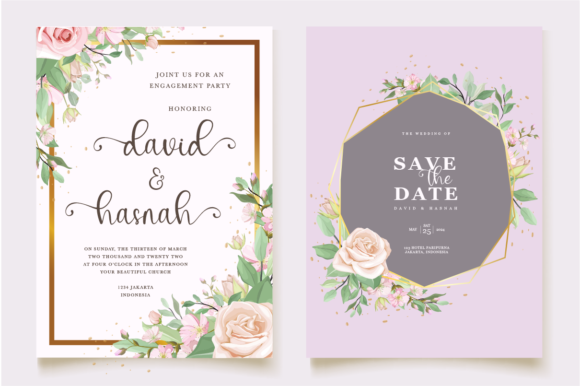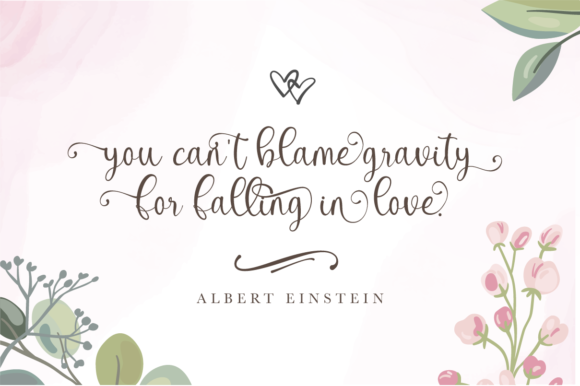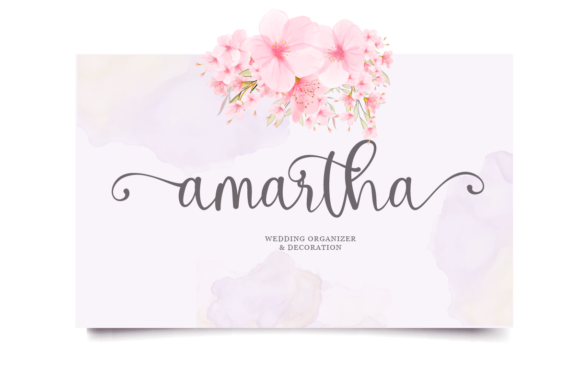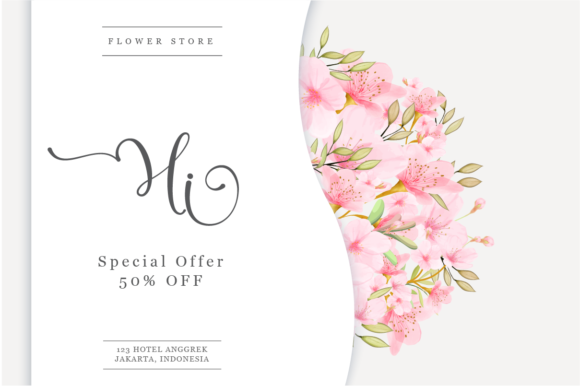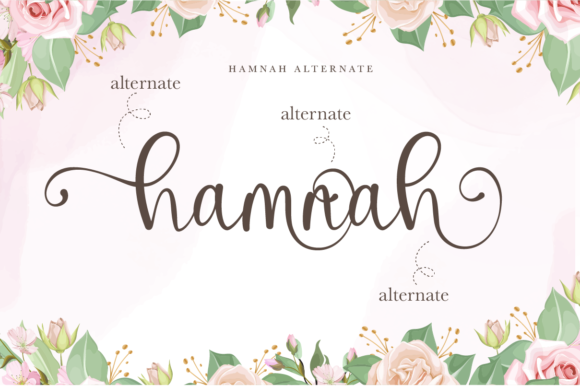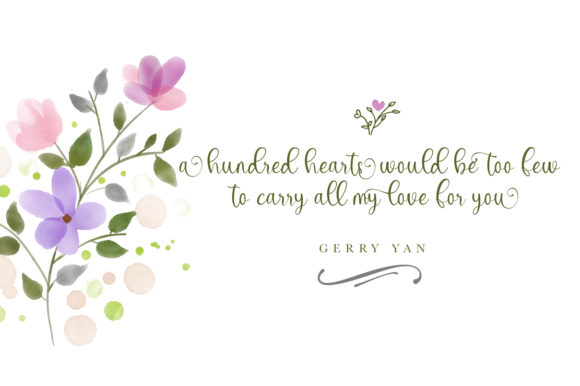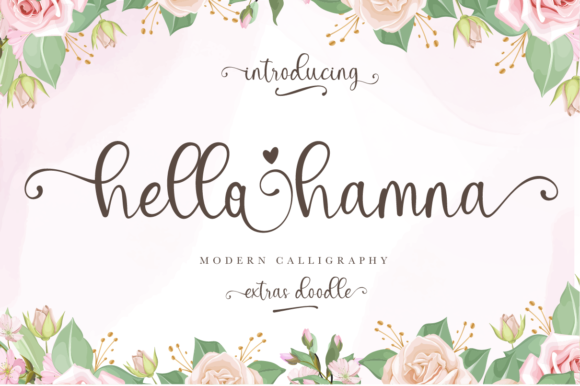
Introducing Hamnah Font: The Sweet and Soft Hand-Lettered Font for Your Creative Projects
Are you a designer or crafter looking for a font that can add a touch of elegance and whimsy to your creations? Look no further than Hamnah Font, a sweet and soft hand-lettered handwritten font that’s perfect for a variety of projects. In this article, we’ll take a closer look at Hamnah Font, its features, and how you can use it to create stunning wedding invitations, beautiful stationery art, eye-catching social media posts, and cute greeting cards.
What is Hamnah Font?
Hamnah Font is a hand-lettered handwritten font that’s designed to give your projects an authentic and personal touch. Its soft and sweet curves make it perfect for creating beautiful and elegant designs that are sure to impress. Whether you’re a professional designer or a crafty DIY enthusiast, Hamnah Font is a great addition to your font collection.
Features of Hamnah Font
So, what makes Hamnah Font so special? Here are some of its key features:
- Hand-lettered and handwritten: Hamnah Font is carefully crafted by hand to give it a unique and personal touch.
- Soft and sweet curves: The font features soft and sweet curves that make it perfect for creating elegant and whimsical designs.
- Authentic feel: Hamnah Font has an authentic feel that’s sure to add a touch of warmth and personality to your projects.
- Versatile: The font is versatile and can be used for a variety of projects, from wedding invitations to social media posts.
Using Hamnah Font for Your Creative Projects
Hamnah Font is a versatile font that can be used for a variety of creative projects. Here are some ideas to get you started:
Wedding Invitations
Hamnah Font is perfect for creating beautiful and elegant wedding invitations. Its soft and sweet curves make it ideal for formal and informal wedding invitations, and its authentic feel is sure to impress your guests.
Stationery Art
Hamnah Font is also great for creating beautiful stationery art, such as notecards, journals, and planners. Its elegant and whimsical design makes it perfect for adding a touch of personality to your stationery.
Social Media Posts
Hamnah Font can also be used to create eye-catching social media posts. Its soft and sweet curves make it perfect for creating engaging and shareable content that will stand out on your followers’ feeds.
Greeting Cards
Finally, Hamnah Font is great for creating cute and personalized greeting cards for special occasions, such as birthdays, holidays, and anniversaries. Its authentic feel and elegant design make it perfect for adding a touch of warmth and personality to your cards.
Tips for Using Hamnah Font
Here are some tips for using Hamnah Font in your creative projects:
- Experiment with different colors: Hamnah Font looks great in a variety of colors, so don’t be afraid to experiment and find the perfect color scheme for your project.
- Pair it with other fonts: Hamnah Font can be paired with other fonts to create a unique and interesting design.
- Use it for headings and titles: Hamnah Font is perfect for headings and titles, and its soft and sweet curves make it easy to read.
| Font Name | Hamnah Font |
| Author | Silverdav |
Hamnah Font is a sweet and soft hand-lettered handwritten font that’s perfect for a variety of creative projects. Its authentic feel, elegant design, and versatility make it a great addition to any font collection. Whether you’re a designer or crafter, Hamnah Font is sure to inspire you to create beautiful and engaging designs. So why not give it a try and see what amazing creations you can come up with?